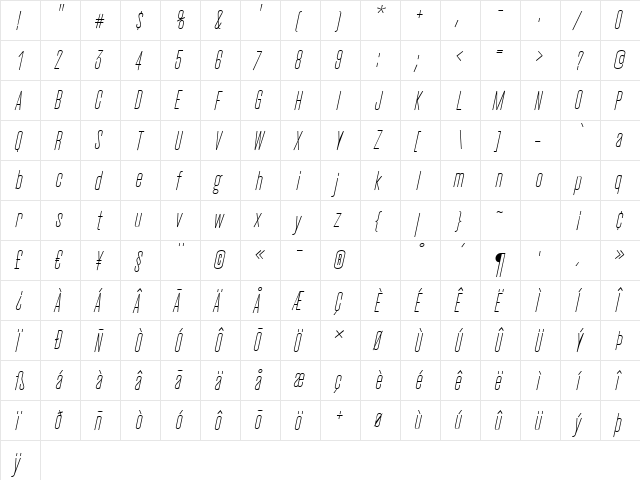
CactusLight Italic
Design Context for CactusLight Typeface
CactusLight is a composed and adaptable typeface that performs quietly and consistently across a wide range of design contexts. Its italic angle brings a sense of urgency and motion to the letterforms. Its slender proportions lend an understated elegance to any composition.